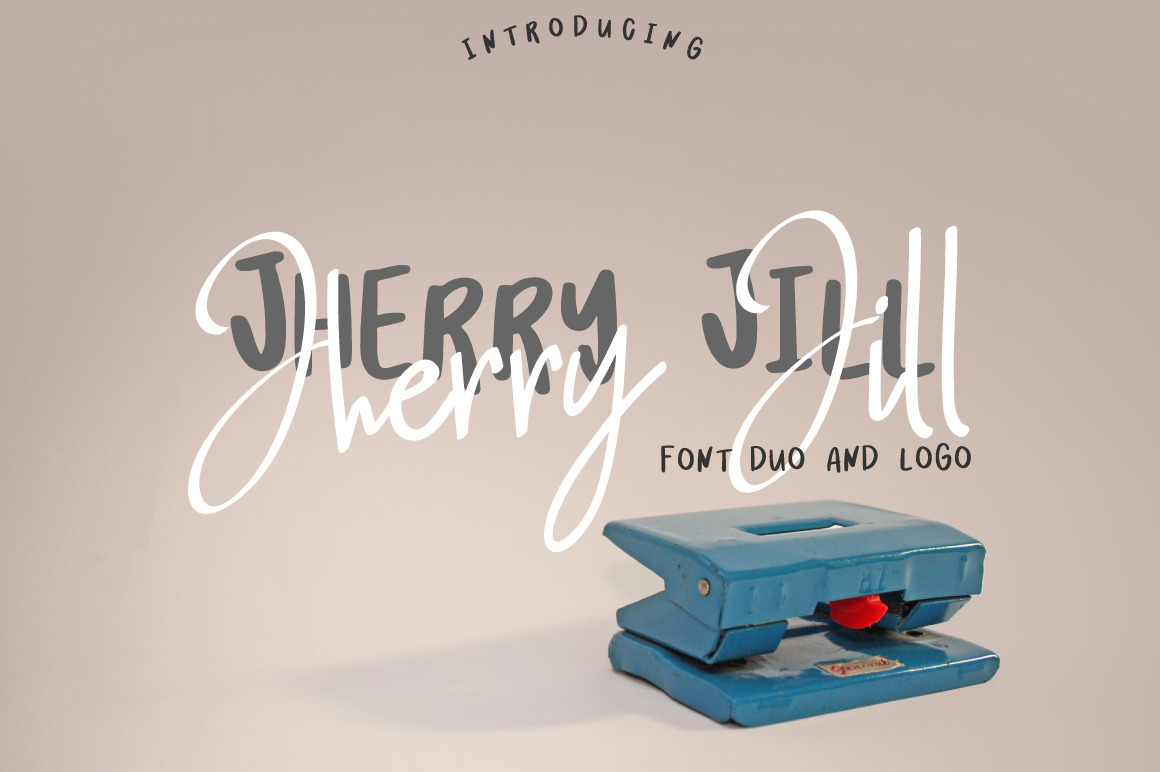
Jherry Jill | Font Duo + 6 Logos
Jherry Jill
it's handwritten script font.
This font a perfect for every project, wedding invitation or your blog. Also with their help, you can create a logo or beautiful frame for your home. Or just use for your small business, book covers, stationery and more.
Include languages in script font: English France Italian Spanish German Dutch Finnish Danish